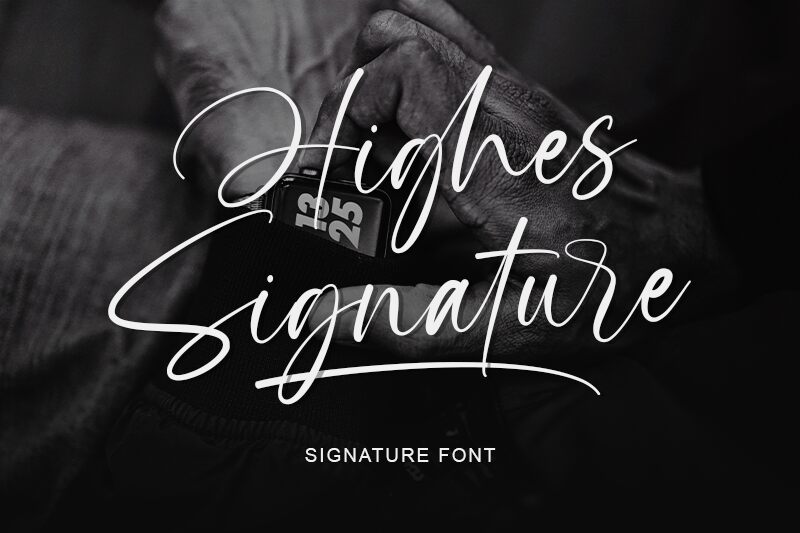
Highes Signature
Highes Signature font by Lemonthe is a light handwritten font that emanates elegance and sophistication. It features a flowing modern script style with a personal touch that makes it delicate and visually pleasing. The design radiates subtlety, perfect for adding unique character to your next project.